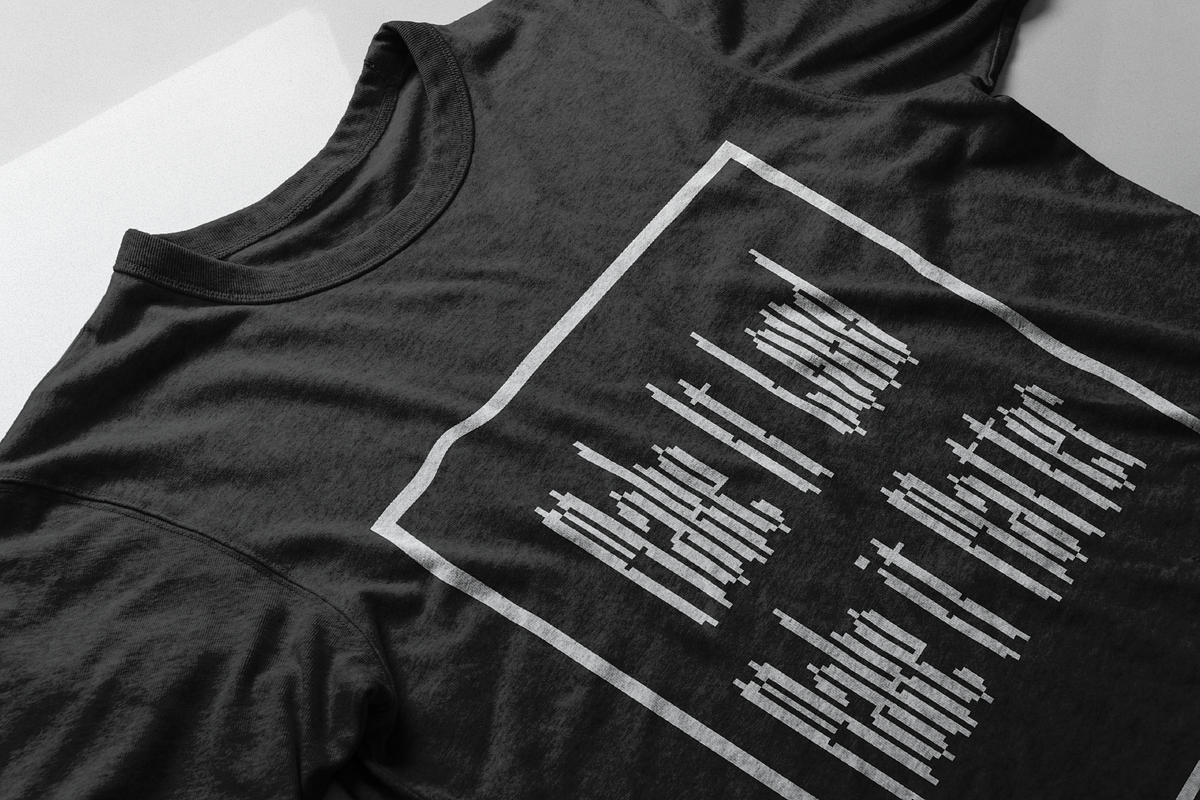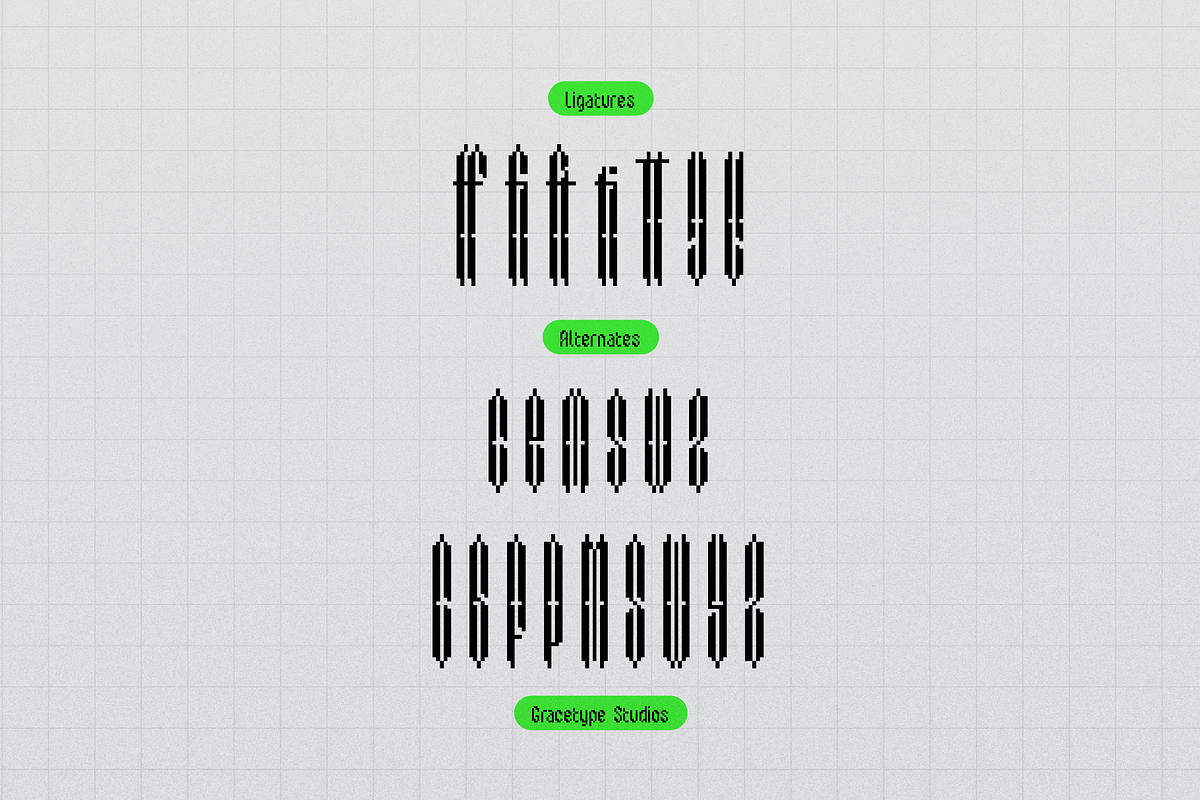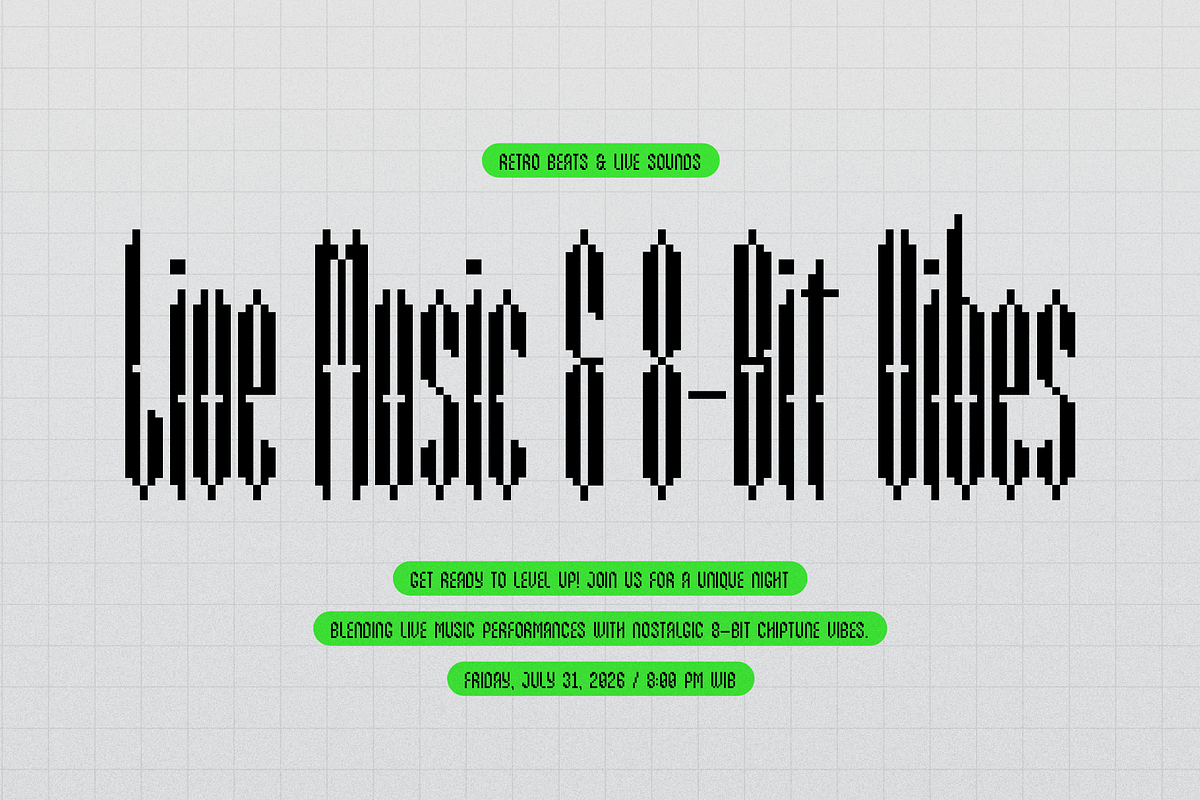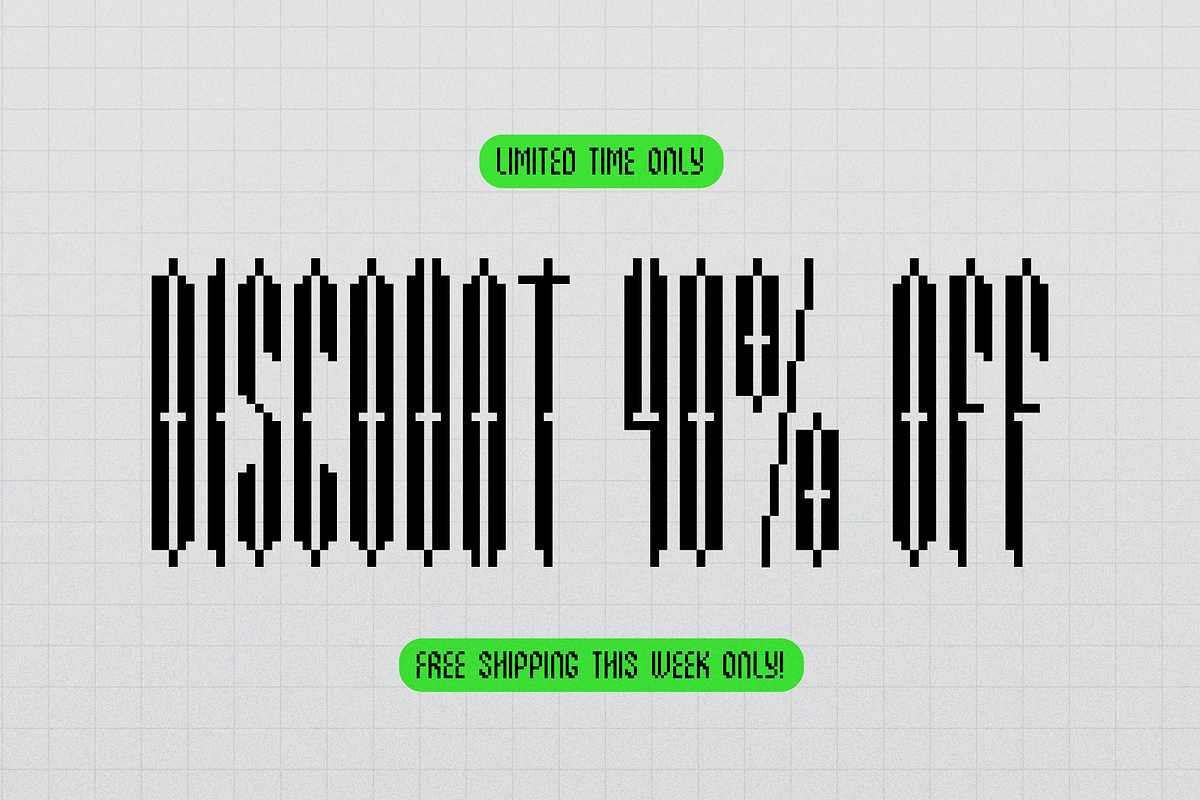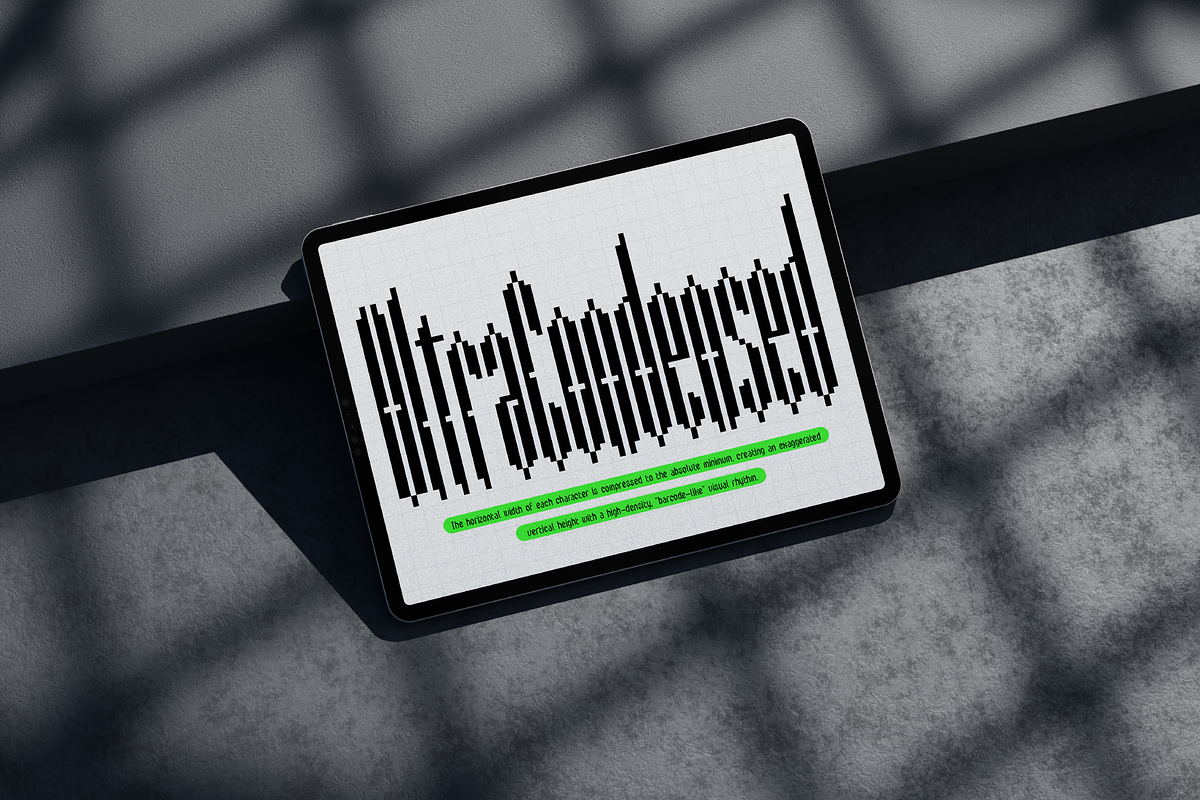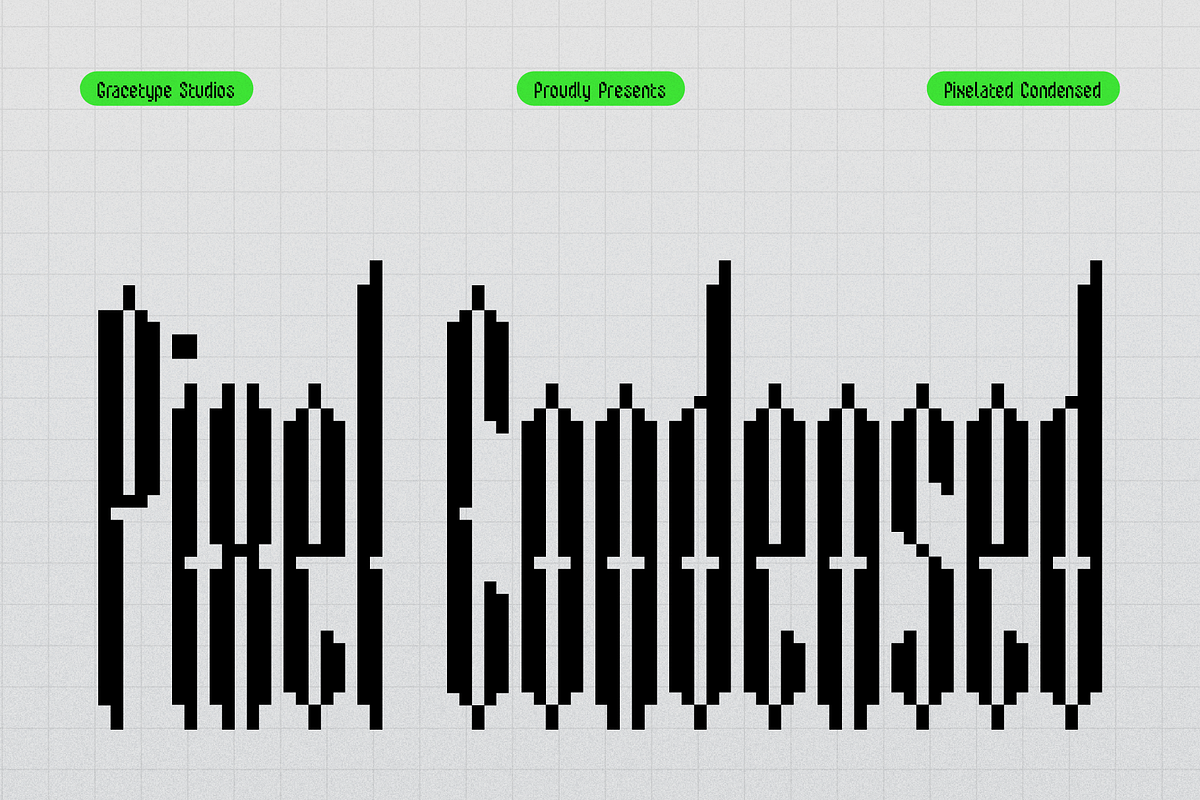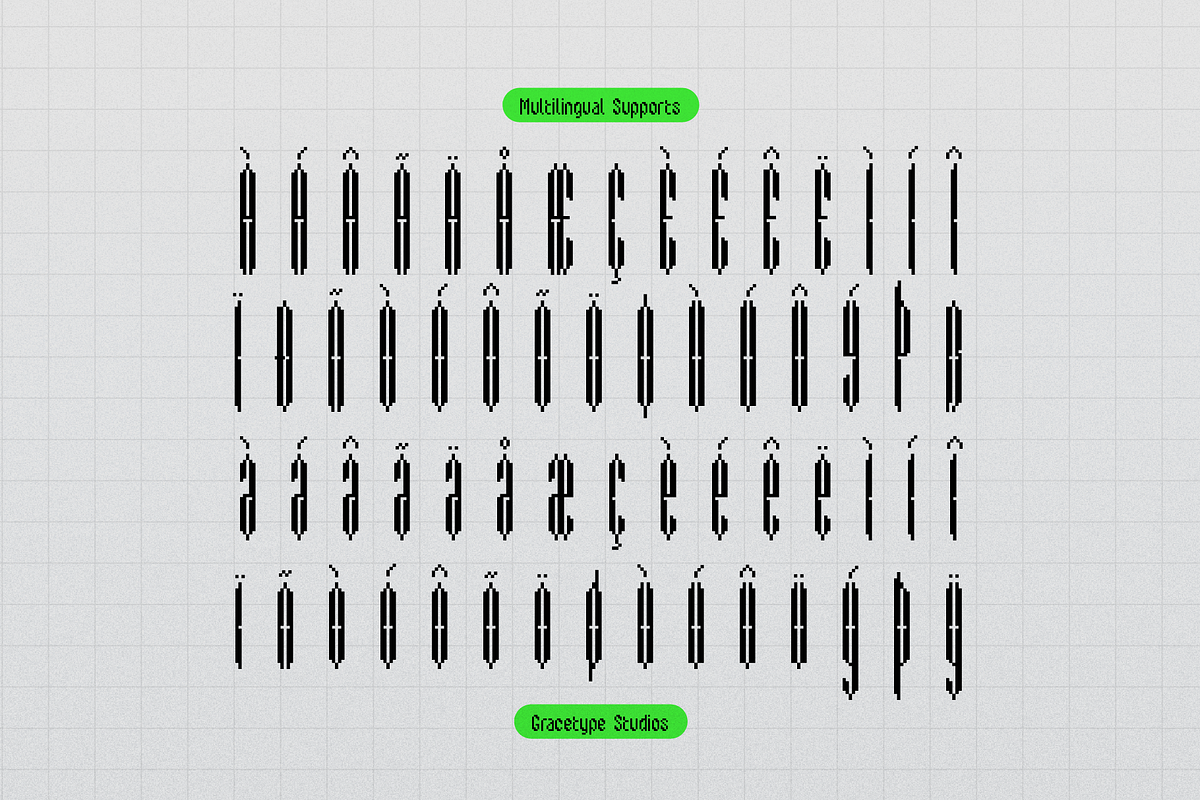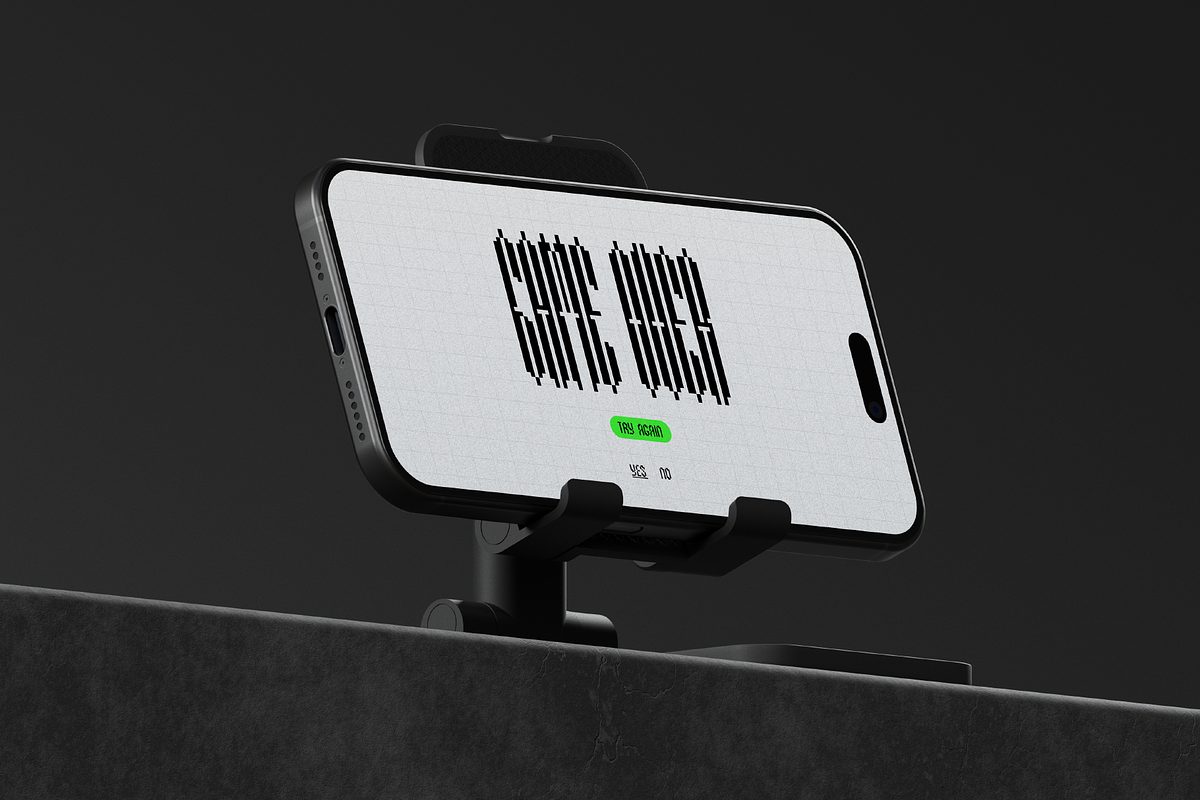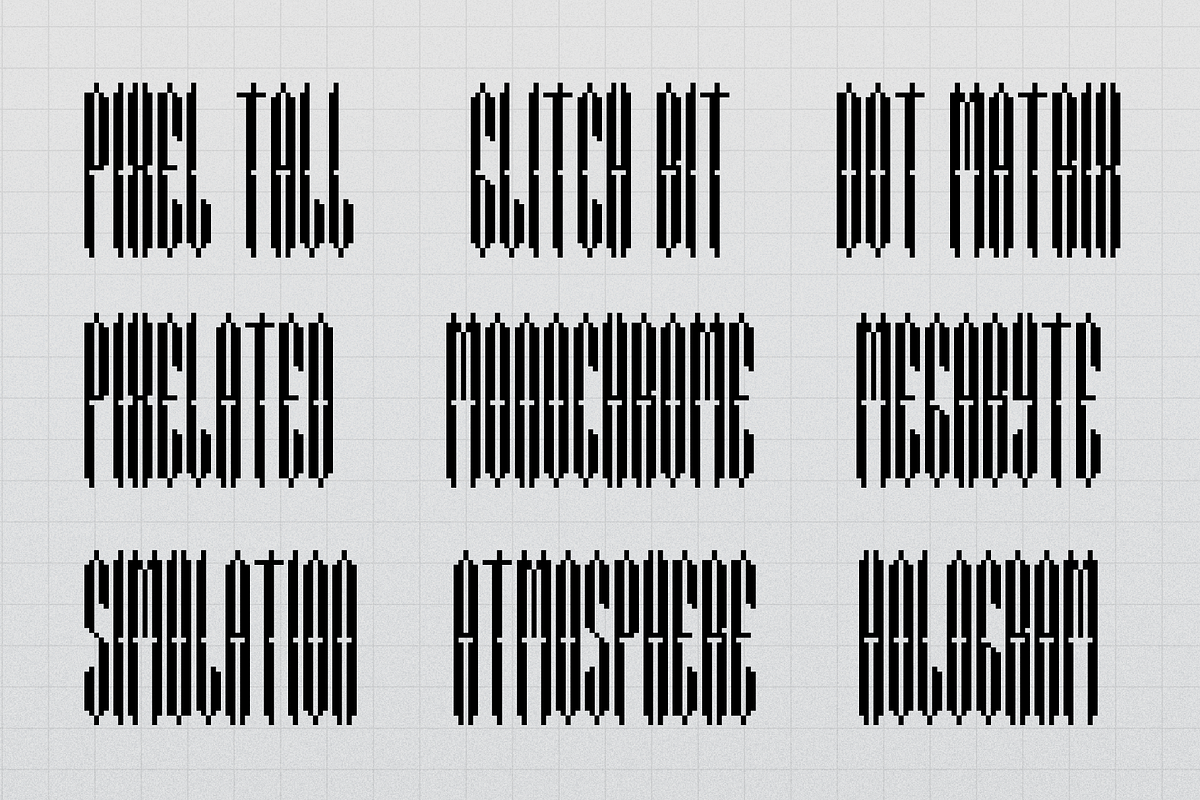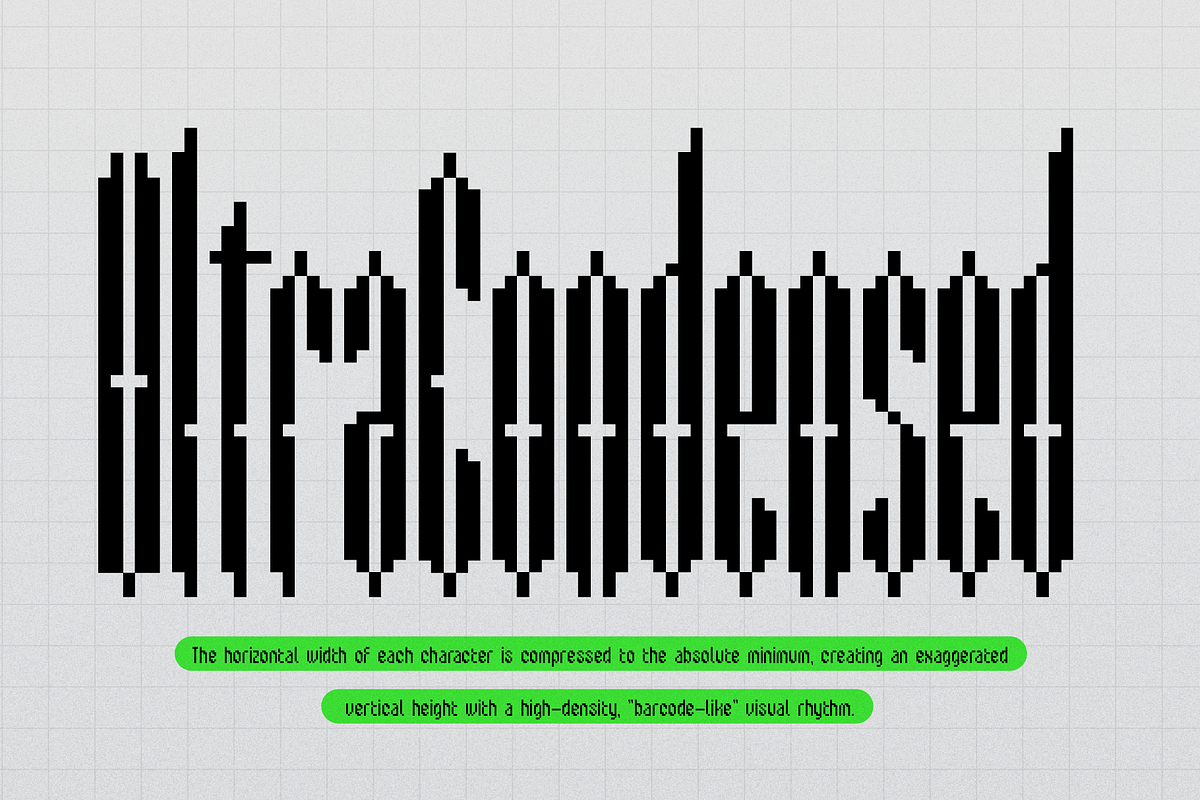
Pixel Condensed Pixelated Condensed
Pixel Condensed | Pixelated Condensed, from Gracetypestudio, suitable for any projects such as: logos, branding projects, homeware designs, product packaging, mugs, quotes, posters, shopping bags, t-shirts, book covers, name card, invitation cards, greeting cards, label, photography, watermark, special events, and all your other lovely projects that need a Pixelated taste.
Alternate and Ligature